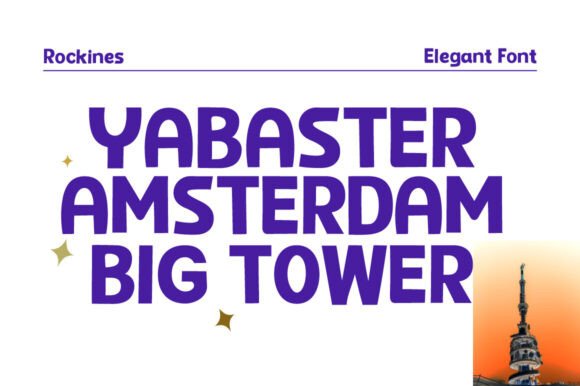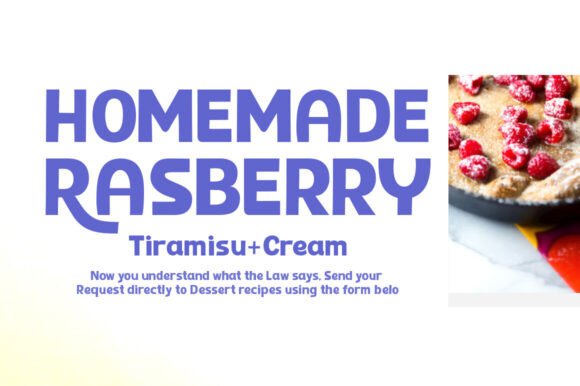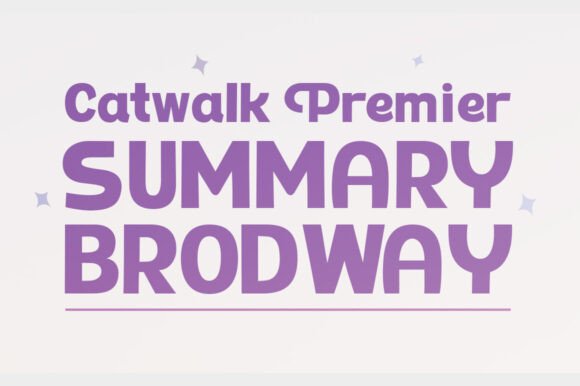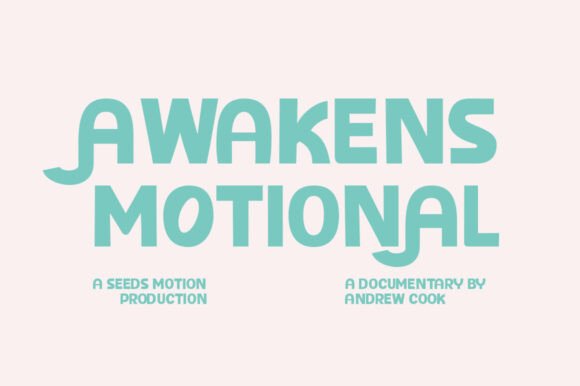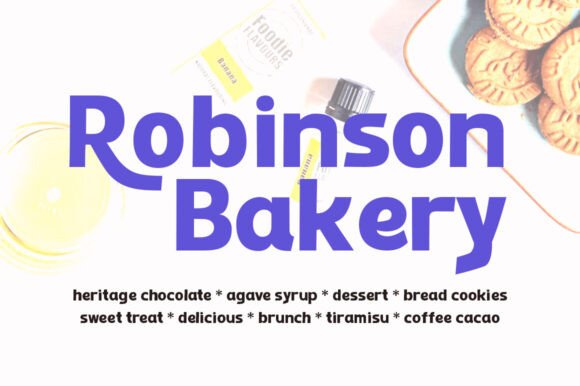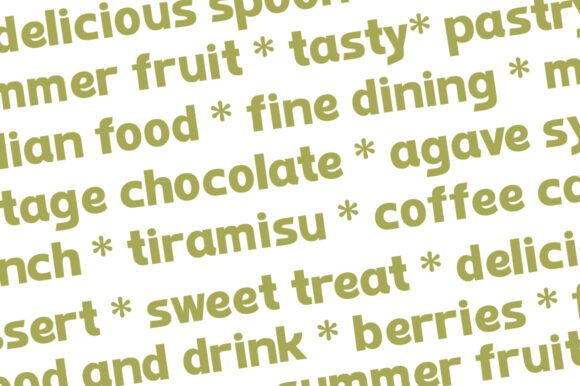
Introduction to Rockines Font
Remember that moment when you stumbled upon the perfect font to match your creative project’s personality? For designers, that ‘aha’ moment is priceless. And if you’re one of those who’s always on the lookout for that perfect font to elevate their designs, you’re in luck! Today, we’re diving into the wonderful world of the Rockines Font.
This cheerful display font is more than just a pretty face – it’s a design resource that’s sure to bring a smile to your audience’s faces. With its easy-to-read style and impeccable friendliness, the Rockines Font is perfect for crafting, digital design, presentations, or making greeting cards. Whether you’re working on a high-quality project or just need a quick design solution, this font has got you covered.
Key Features of Rockines Font
- High-quality, unique font design perfect for creative projects requiring a distinctive look.
- Comes with a transparent background, allowing for easy integration with various design elements.
- Size: 10,000+ glyphs, providing a comprehensive character set for various languages and writing systems.
- Unique characteristics: bold, edgy lines, and geometric shapes that add a touch of modernity to any design.
Honest Review: Rockines Font
As a designer, I’ve had the opportunity to work with a variety of fonts and design resources. Recently, I came across the Rockines Font, and I was eager to put it to the test.
- ✨ High-quality design: The Rockines Font has a modern, edgy feel that would be perfect for a creative project that requires a bold statement.
- ⚠️ Limited font variations: While the Rockines Font is available in several weights, I found the options to be somewhat limited compared to other fonts.
Overall, I’d say the Rockines Font is a solid design resource that can add a touch of modernity to your creative project. While it has its limitations, I appreciate its high-quality design and transparent background features. If you’re looking for a free font with a bold, edgy feel, the Rockines Font is definitely worth checking out.
Rockines Font is a versatile font that can be used in various creative projects, such as graphic design, digital art, and typography. It’s ideal for designing logos, business cards, and other marketing materials. The font’s high quality and transparent background make it perfect for use in digital media, such as websites and social media posts.
To get the most out of Rockines Font, experiment with different font sizes, colors, and styles to create unique and eye-catching designs. You can also combine Rockines Font with other fonts to create a visually appealing typography. Additionally, use the font’s transparent background to create a seamless design that blends with your background image or color.